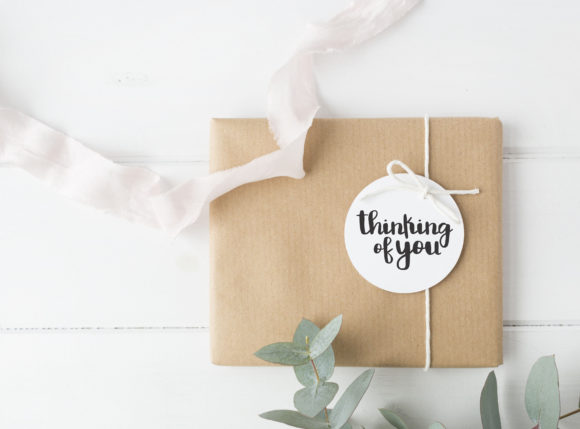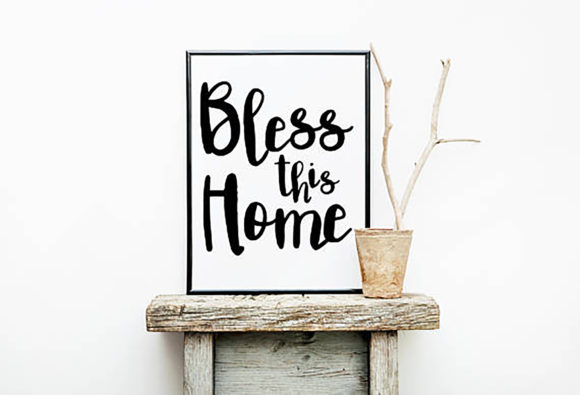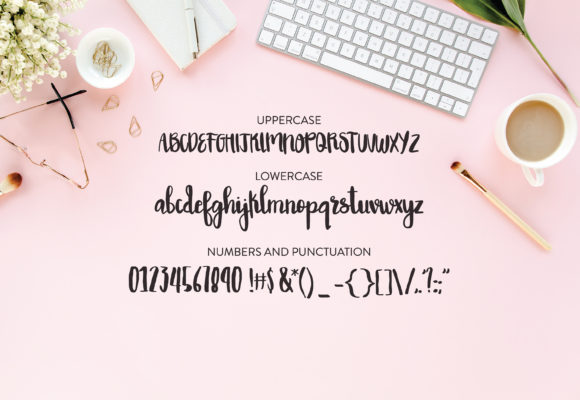
The Perfect Brushstroke: Unveiling the Enchanting Bella Rose Font
Have you ever been working on a design project, pouring your heart and soul into it, and suddenly, you need that perfect finishing touch? A font that whispers ‘friendliness’ and ‘whimsy’ in your ear, elevating your entire project to new heights? For designers, this moment is a familiar one, and that’s exactly where the Bella Rose Font comes in – a delightful handwritten font designed with the gentle strokes of a brush pen.
This lovely font is not just a pretty face; it’s a powerful tool that brings a unique, quirky charm to any project. With its friendly feel and adaptable nature, the Bella Rose Font is an invaluable asset for designers looking to add a personal touch to their work. Whether you’re working on a wedding invitation, a children’s book, or a social media campaign, this font is sure to captivate your audience and leave a lasting impression.
Bella Rose Font Key Features
- Font Family: Bella Rose is a script font designed to resemble hand-written or calligraphic text.
- Unique Characteristics: The font features elegant, flowing lines and subtle flair at the ends of letters, giving it a distinctive and sophisticated appearance.
- Font Style: Bella Rose Font is available in Regular and Bold styles, allowing users to choose the level of emphasis and visual impact they desire.
Bella Rose Font Review
Overall, I was impressed with the elegant and feminine design of the Bella Rose font. It’s perfect for projects that require a touch of whimsy and romance. Here are some aspects that I think work well:
- ✨ The font’s curved lines and flourishes add a beautiful, hand-drawn feel that’s sure to captivate your audience.
- ✨ The font is highly customizable, allowing you to adjust the weight, spacing, and even the letterforms to suit your needs.
- ✨ The font is available in a wide range of languages, making it a great choice for multilingual projects.
However, there are a few limitations that I’d like to point out:
- ⚠️ The font may be too ornate for some projects, making it difficult to read at smaller font sizes.
- ⚠️ The font’s complexity may also make it more challenging to pair with other fonts, as it can be quite dominant.
Overall, I’d say that the Bella Rose font is a great choice for designers who want to add a touch of elegance and romance to their projects. While it may have some limitations, its unique design and customizability make it a great option for the right project.
Use the Bella Rose Font for designs that require a touch of elegance and sophistication, such as wedding invitations, baby shower invitations, and graduation announcements. Experiment with different font sizes, colors, and styles to create a unique and eye-catching design.
The Bella Rose Font is ideal for:
– Baby shower invitations and decorations
– Graduation announcements and certificates
– Fashion and beauty branding and marketing materials
Alternatives to Bella Rose Font
The Great Vibes Font is a beautiful, elegant script font that is perfect for creating a luxurious and sophisticated look. It is ideal for use in wedding invitations, magazine headlines, and other designs where a touch of class is needed. Great Vibes Font is more ornate and intricate compared to Bella Rose Font, making it a better choice for designs that require a high level of sophistication.